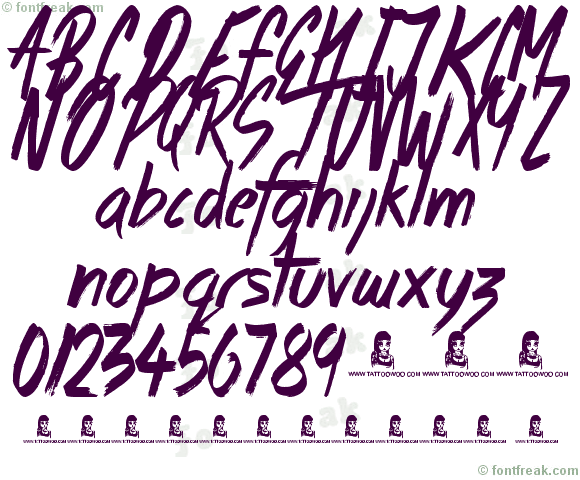
Morning Star
The Morning Star font, created by Jonathan S. Harris, is a captivating script typeface that embodies a blend of elegance and artistic flair. Its handwritten style exudes a personal touch, making it perfect for various creative projects. The font features a moderate stroke weight with smooth, flowing curves that provide a sense of warmth and spontaneity. The contrast between thick and thin lines adds a dynamic visual interest, while the generous spacing between characters enhances readability, ensuring that the text remains clear and inviting.
This versatile font shines in a variety of applications. It is an excellent choice for wedding invitations, where the romantic and whimsical qualities can effectively convey the celebratory spirit. Additionally, it works beautifully for movie posters, lending an artistic edge that captures the viewer's attention. Restaurant menus can benefit from the Morning Star font, as its unique style can evoke a sense of culinary artistry and charm. Furthermore, content creators will find it ideal for social media graphics, where a personal touch can help engage audiences and enhance brand identity.
The target audience for the Morning Star font includes graphic designers, small business owners, and content creators who seek to infuse their work with personality and creativity. The font’s free availability as freeware makes it an accessible option for those looking to elevate their designs without breaking the bank.
What sets the Morning Star font apart is its ability to blend sophistication with an informal feel, making it suitable for both formal and casual contexts. Whether you're crafting an invitation or designing a poster, the Morning Star font free download offers a beautiful solution that adds a unique character to your projects.